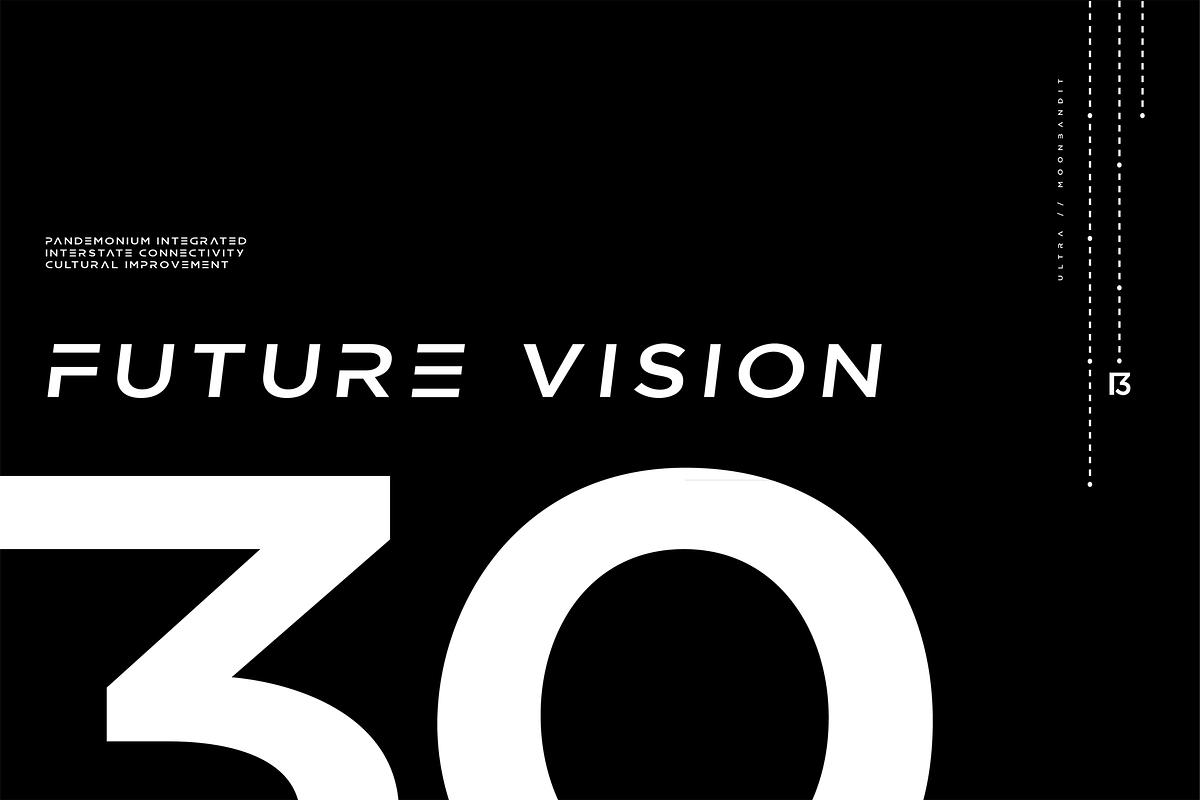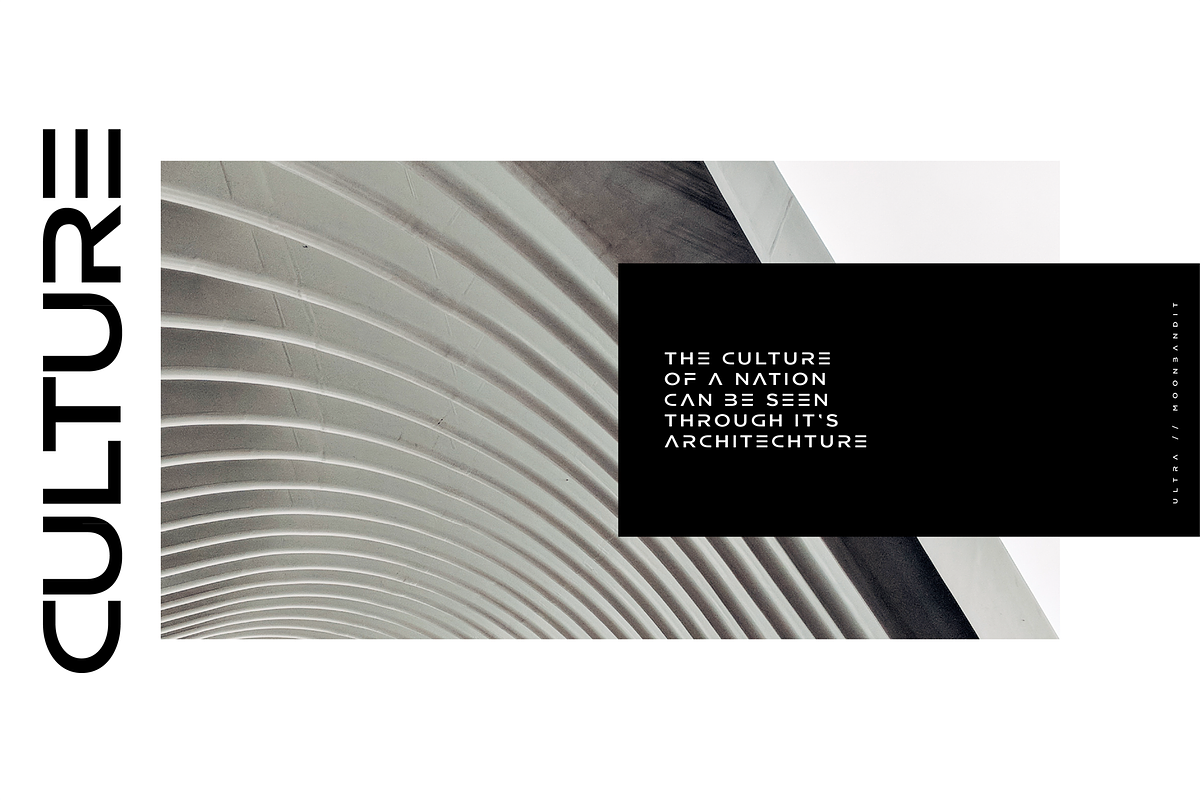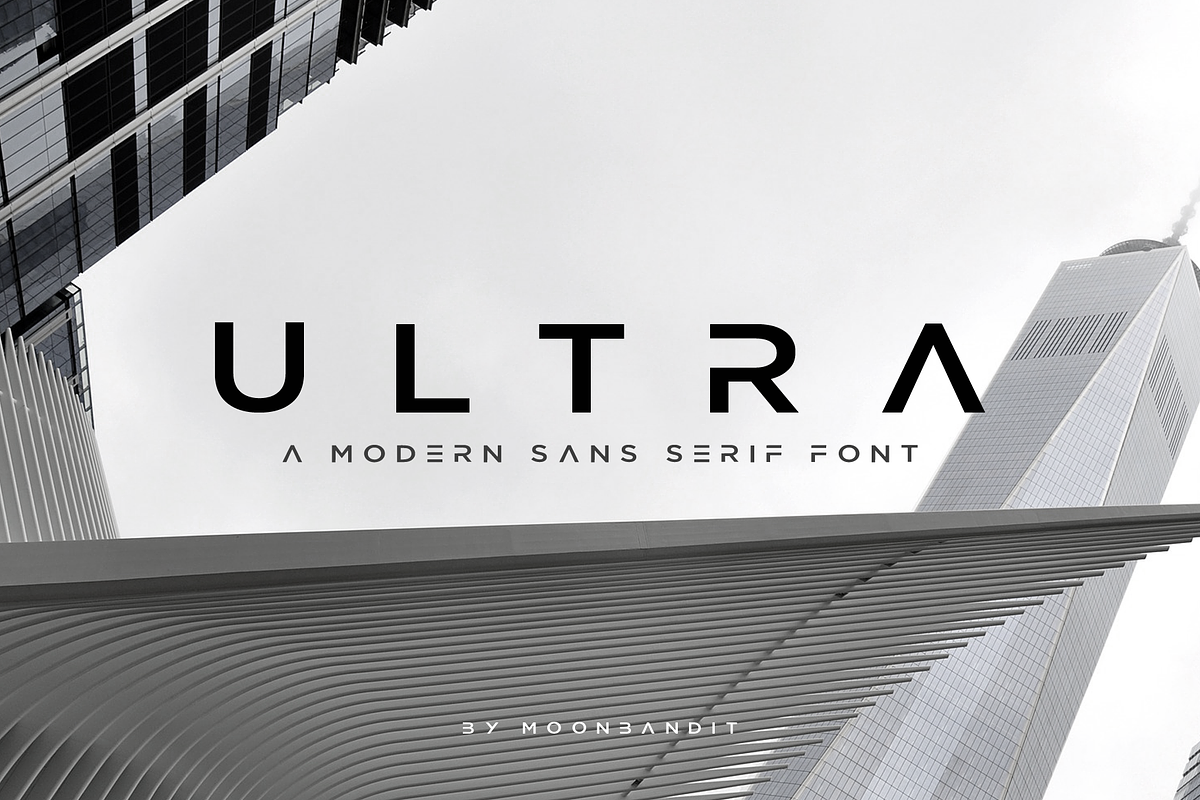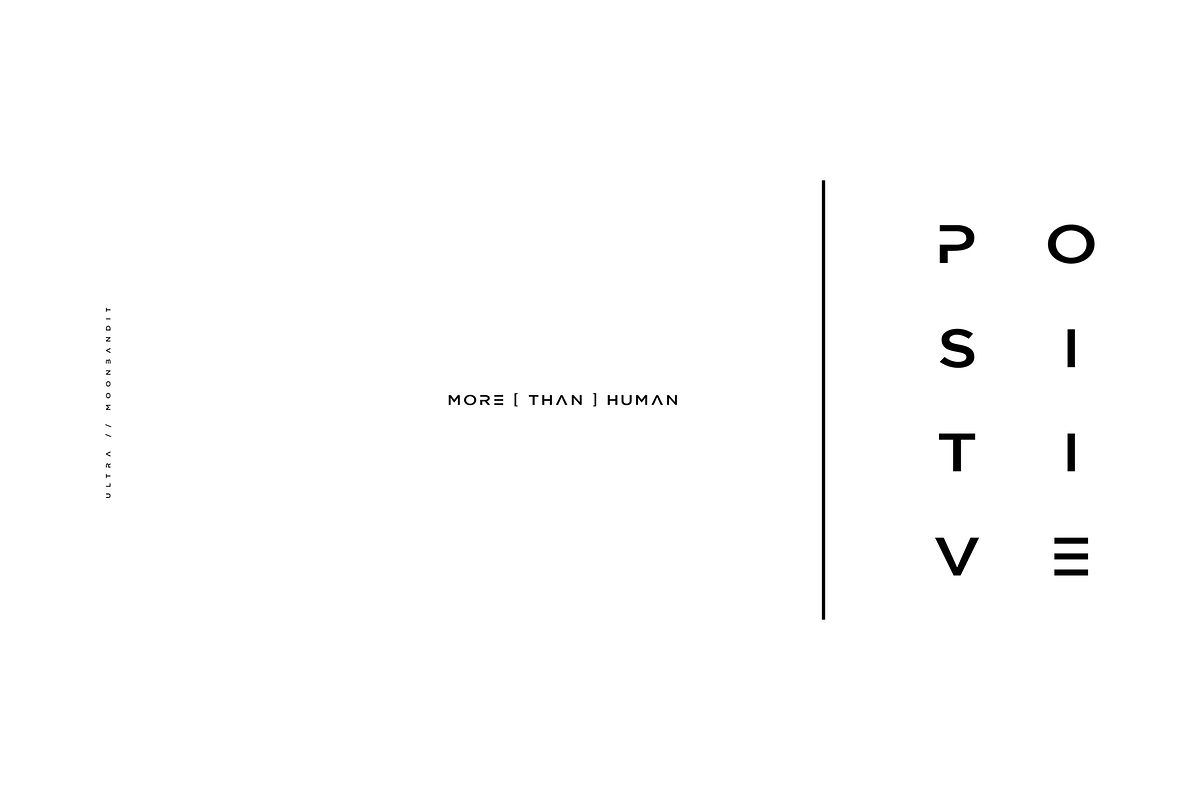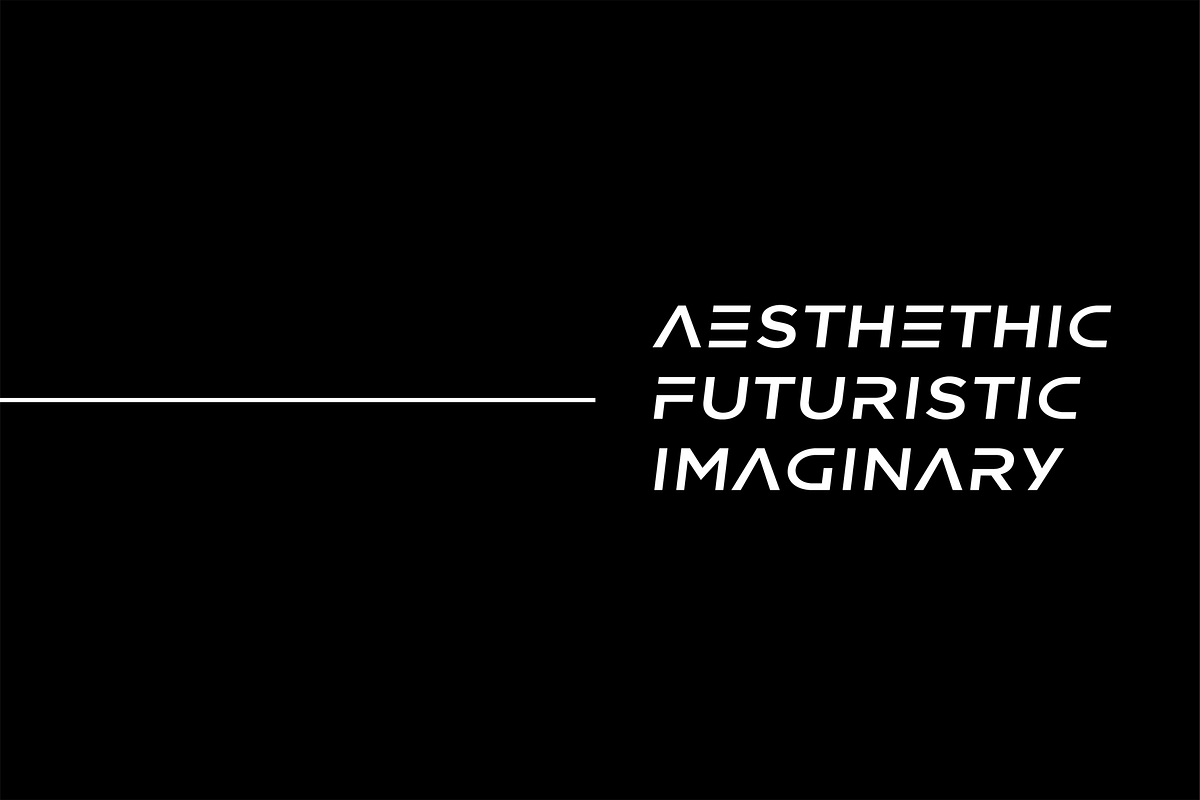
ULTRA - Modern Sans Serif Font
A modern sleek uppercase sans serif display font.
a font with a futuristic edge, geometric corners, inspired from the modern high tech architecture world.
ULTRA - Modern Sans Serif Font by MoonBandit fits naturally into Branding, posters, packaging, typography.